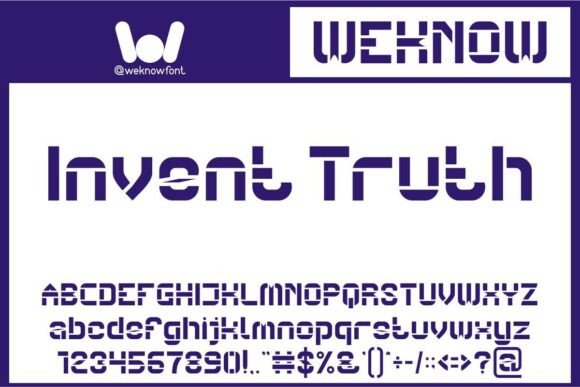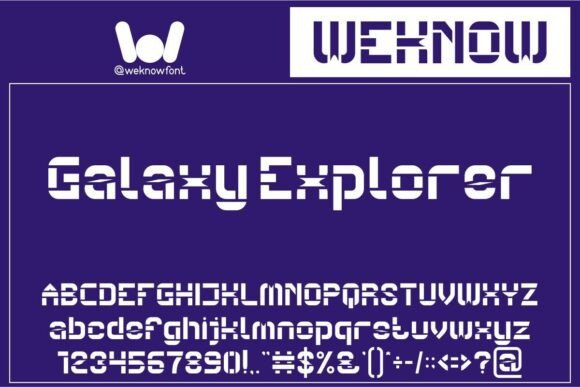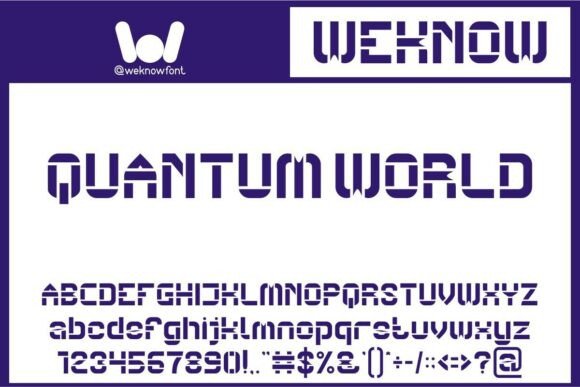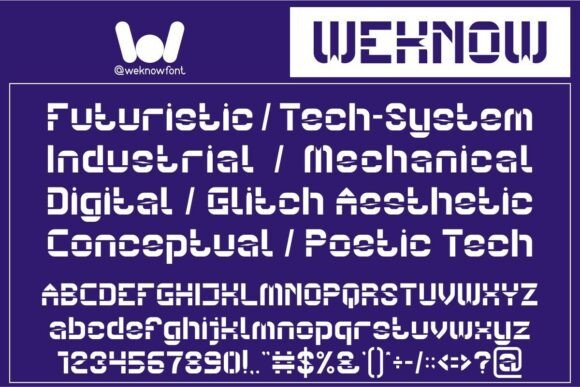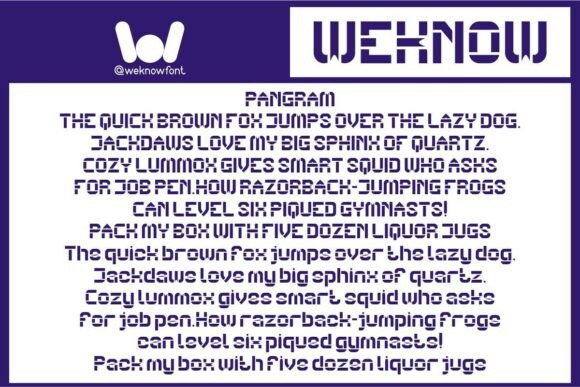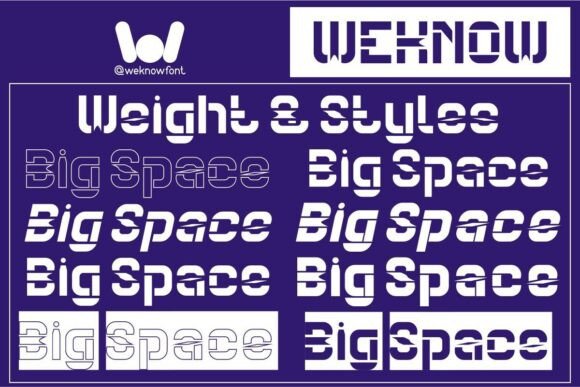
The Quest for the Perfect Font: A Journey with Big Space
I’ll never forget the time I was working on a futuristic gaming project, and my client asked for a font that would transport their audience to another galaxy. I scoured the internet, tried countless fonts, but nothing seemed quite right. That was until I stumbled upon Big Space, a modern stencil font that perfectly blended techno, sci-fi, and futuristic elements. It was love at first sight! ✨
Big Space: A Font that’s Out of this World
Big Space is more than just a font – it’s an experience. This eclectic blend of artificial intelligence and minimalist design is crafted to leave a striking impression. Its modern aesthetic makes it a promising choice for corporate identities, logotypes, and eye-catching headlines. Whether you’re working on a poster design, music theme, or social media content, Big Space promises to add a dash of innovation to your creative projects.
• ✨ Unique and futuristic design that’s sure to turn heads
• ✅ Highly versatile and adaptable to various design projects
• ✅ Well-crafted and legible, even at small sizes
• ⚠️ Limited character set, which may require additional design work
• 🤔 May not be suitable for body text or lengthy content
The Designer Inspiration Behind Big Space
Big Space was inspired by the vision of a futuristic world where technology and design blend seamlessly together. The font’s creator, a renowned type designer, aimed to craft a font that would capture the essence of innovation and progress. The result is a font that’s both futuristic and timeless, perfect for designers who want to push the boundaries of creativity.
What is Big Space? Big Space is a modern stencil font that blends techno, sci-fi, and futuristic elements.
What can I use Big Space for? Big Space is ideal for logotypes, headlines, poster designs, music themes, social media content, and more.
Is Big Space easy to use? Yes, Big Space is designed to be highly versatile and adaptable to various design projects and software.
In conclusion, Big Space is a font that’s truly out of this world. Its unique blend of techno, sci-fi, and futuristic elements makes it a promising choice for designers who want to add a dash of innovation to their creative projects. Whether you’re working on a gaming project, poster design, or social media content, Big Space is sure to leave a lasting impression.